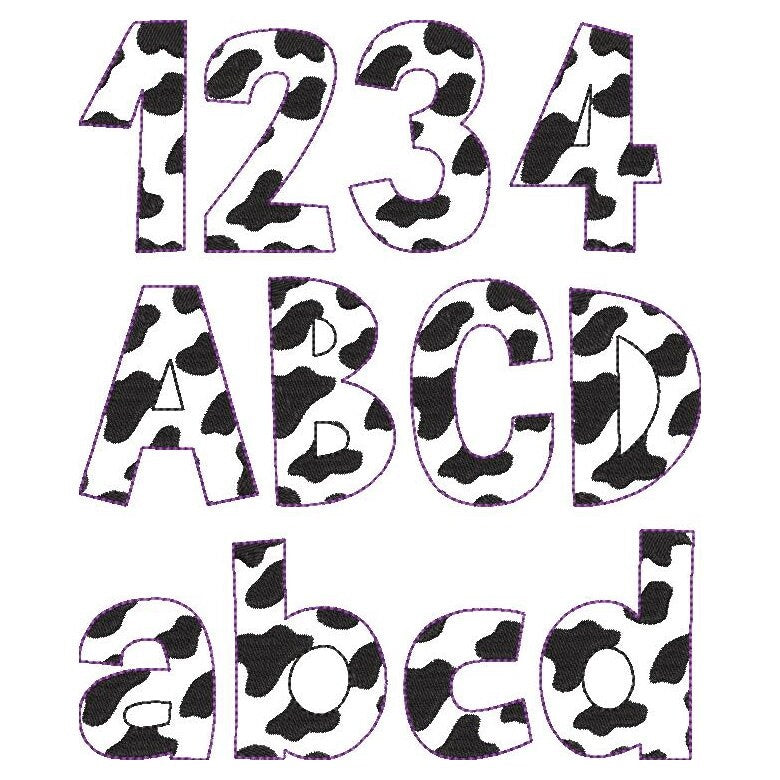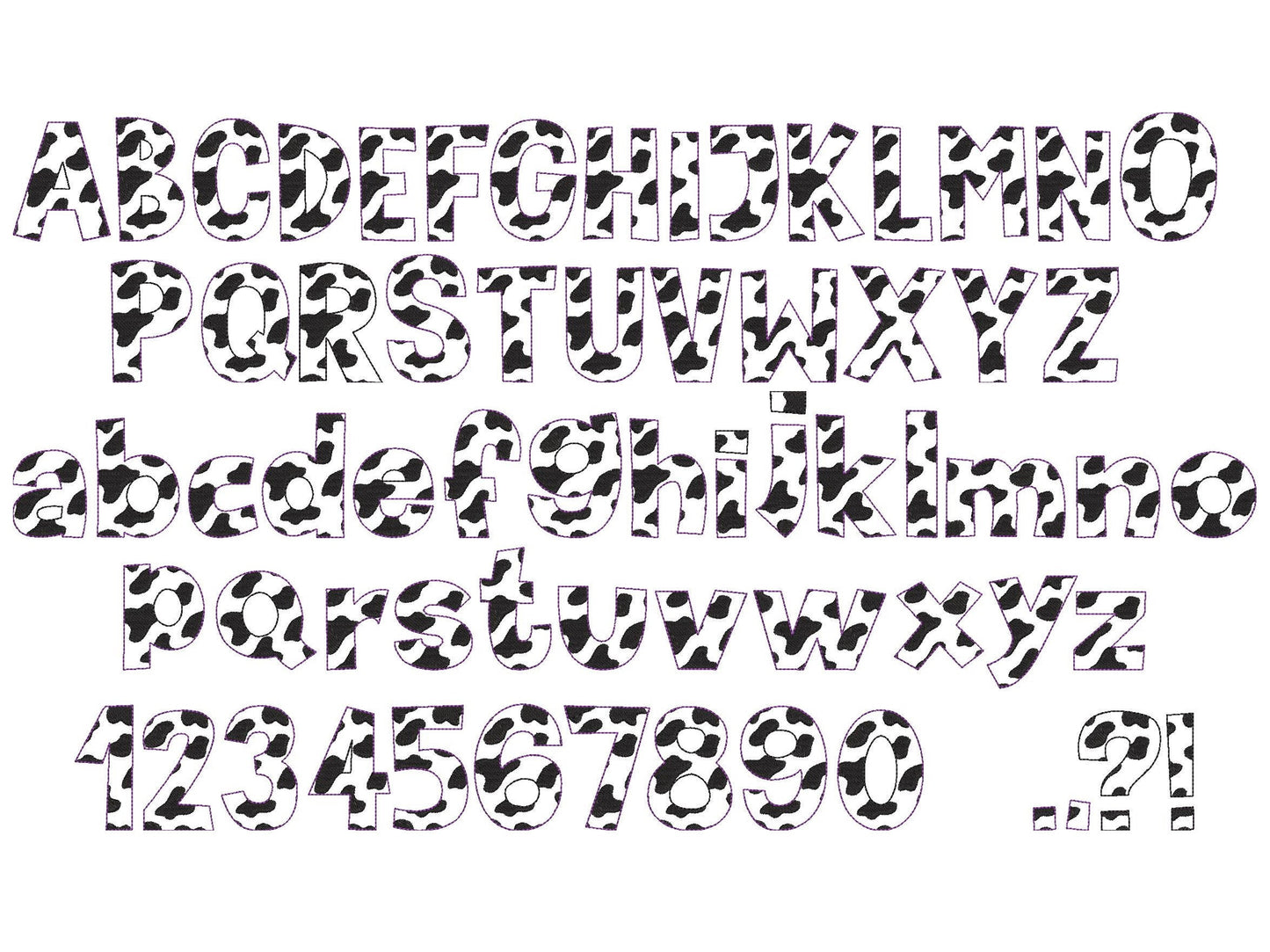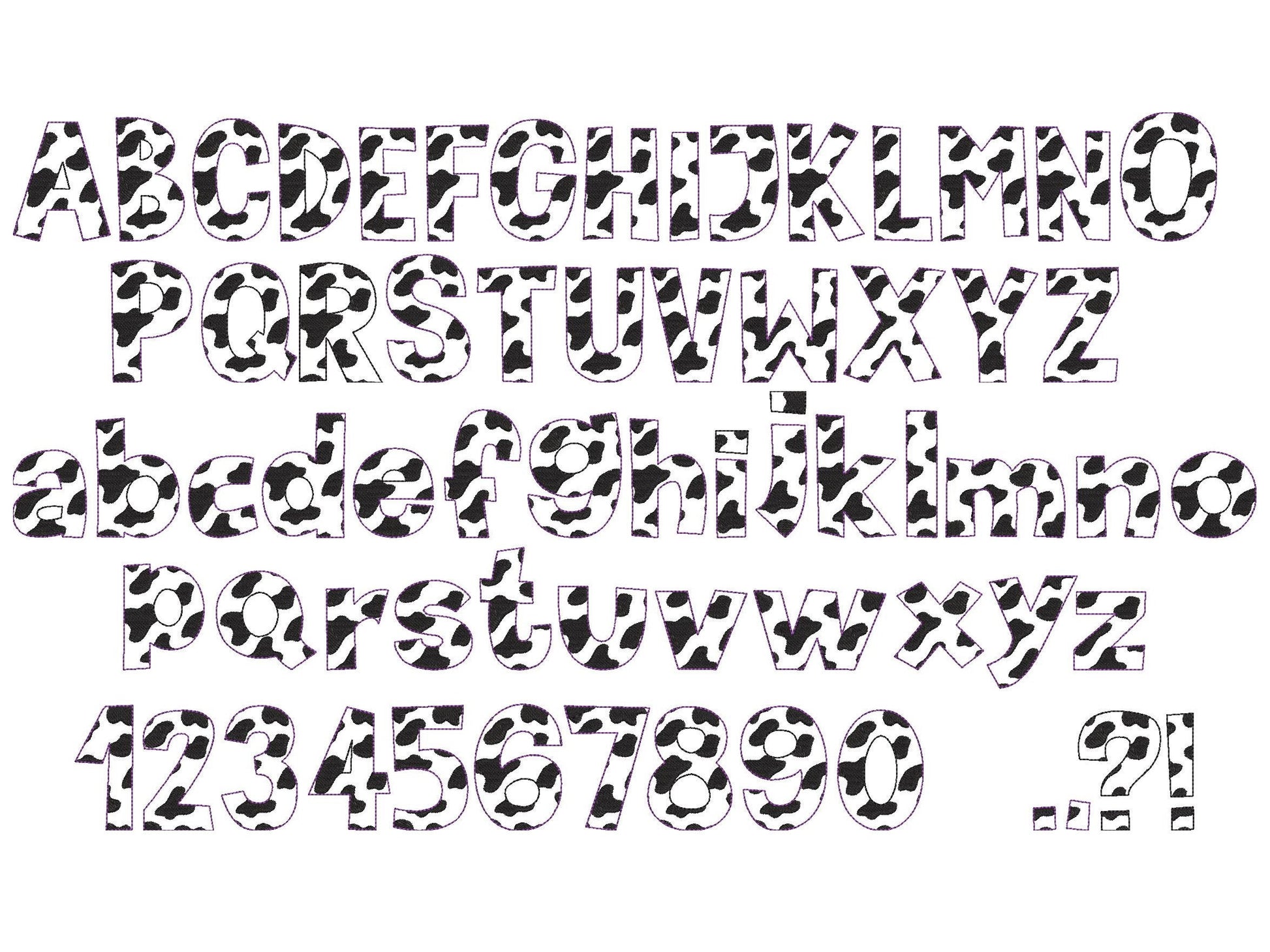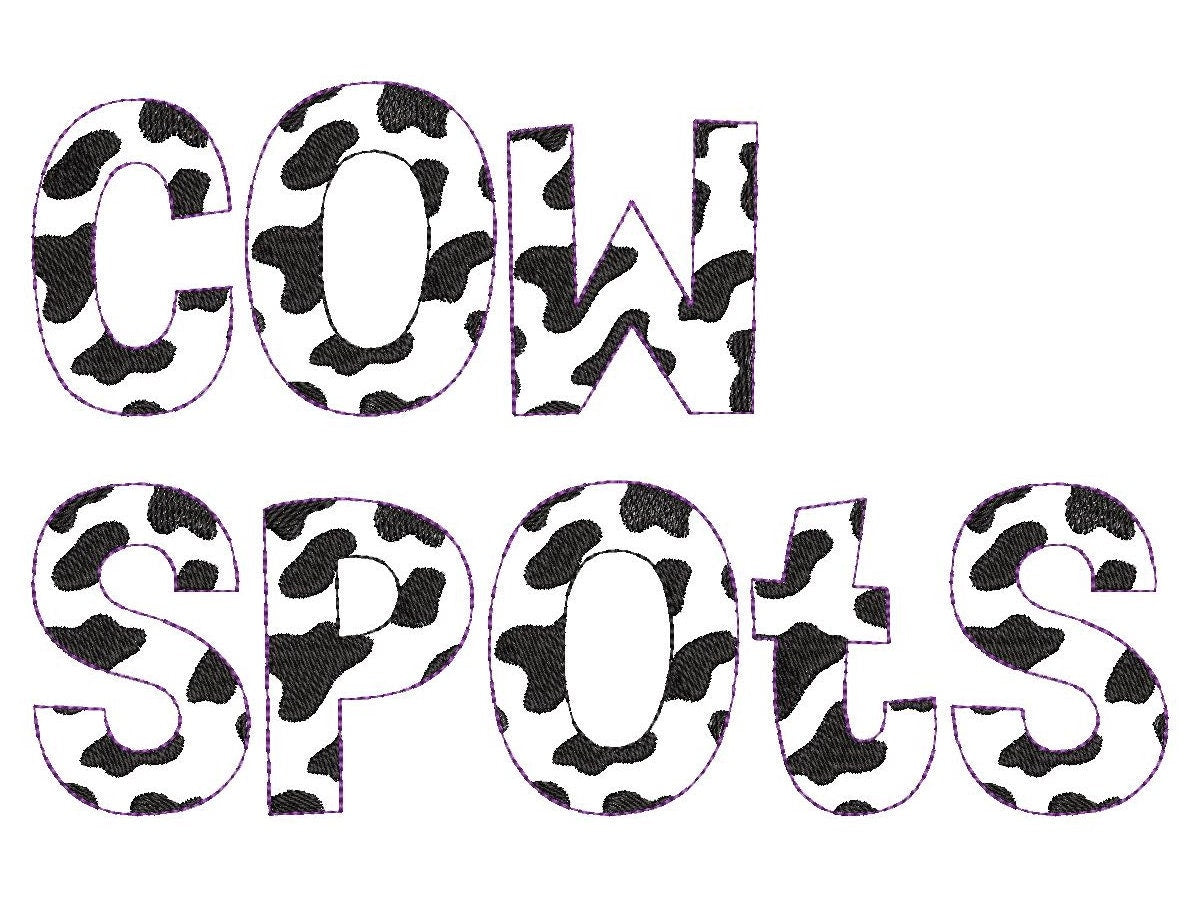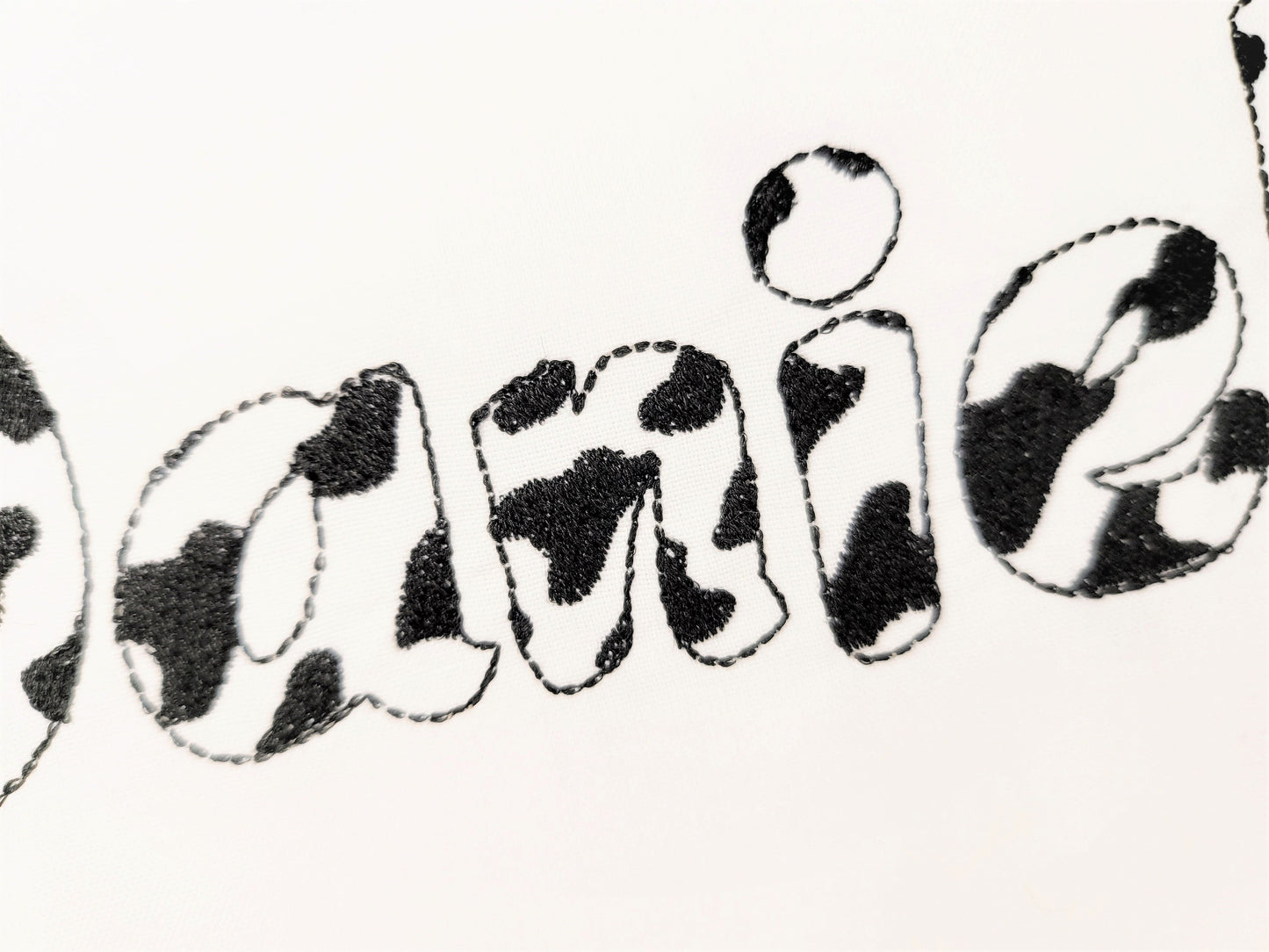
Cow Spots Patterned Font
A cow spots patterned font in quick stitch that looks like lace, for farm-themed kids' names on shirts, caps and bags.
Fill stitch spots are part of the embroidery and the fabric shows through; you can also stitch it as a raggedy edge applique. Uppercase and lowercase letters, numbers and punctuation in five sizes: 1.5, 2, 2.3, 2.7 and 3.3 inches.